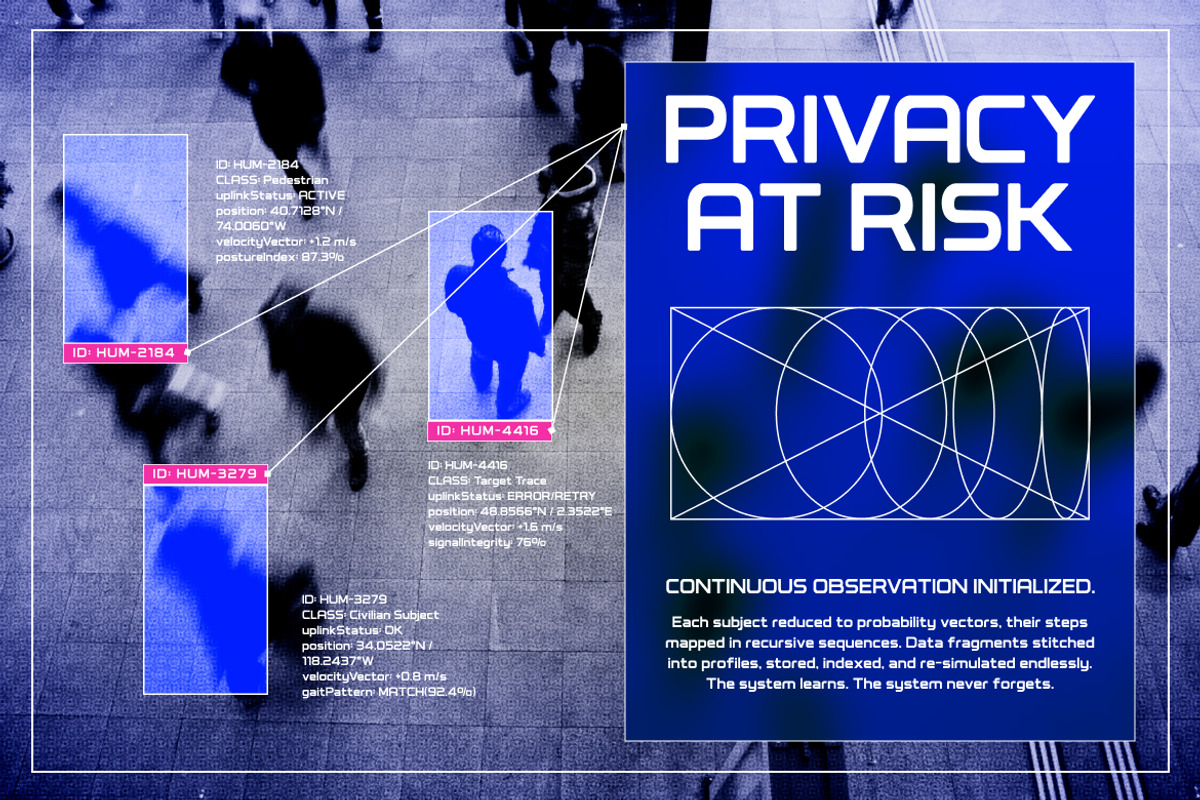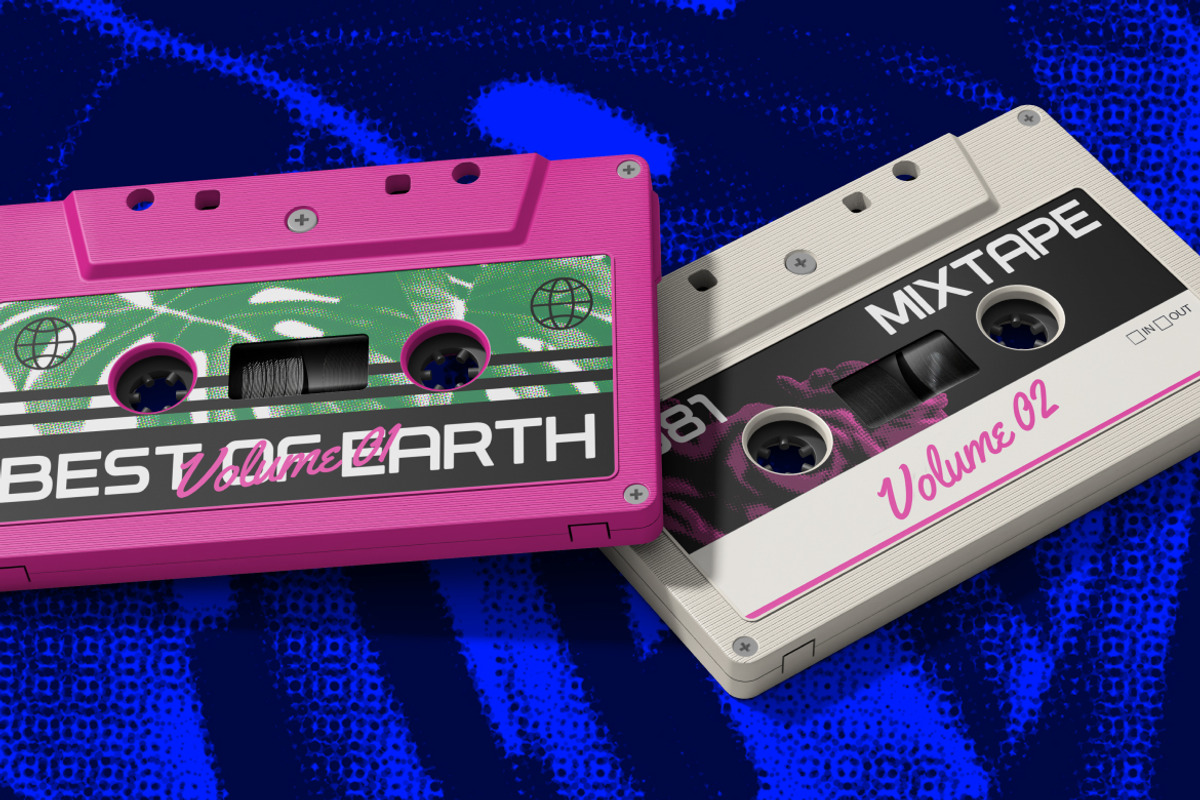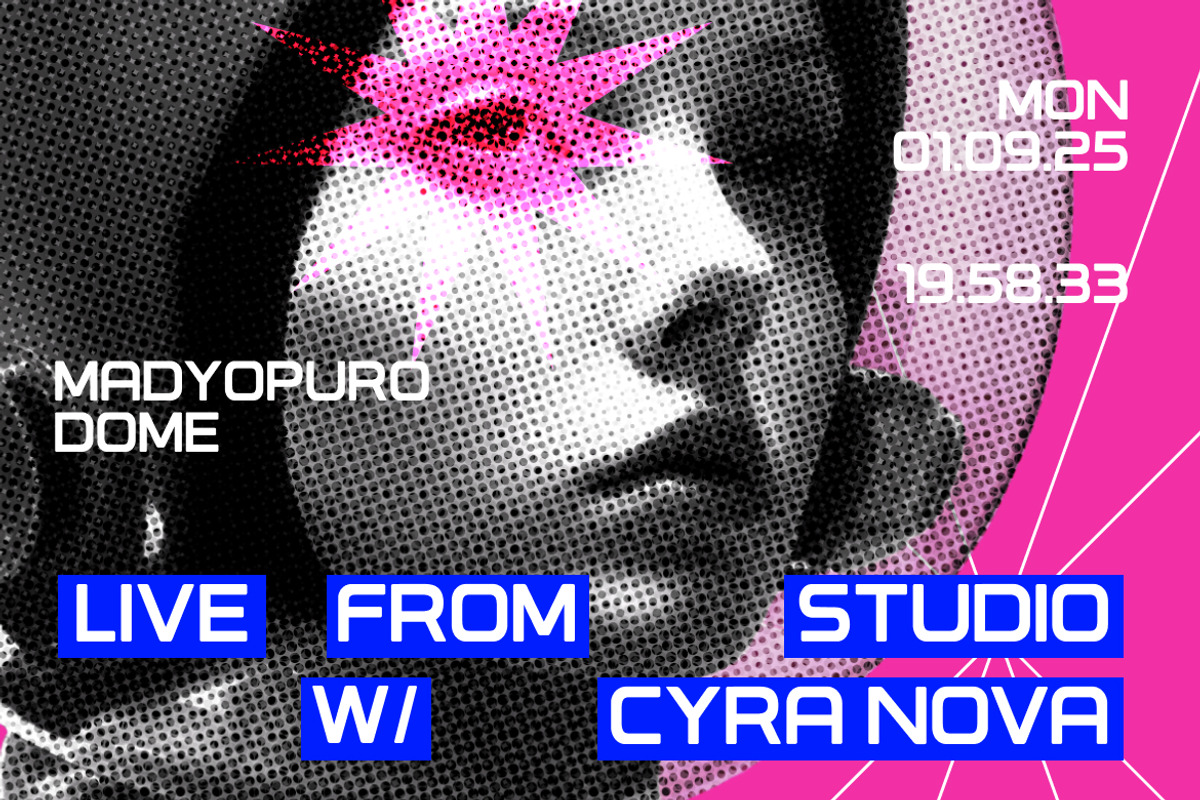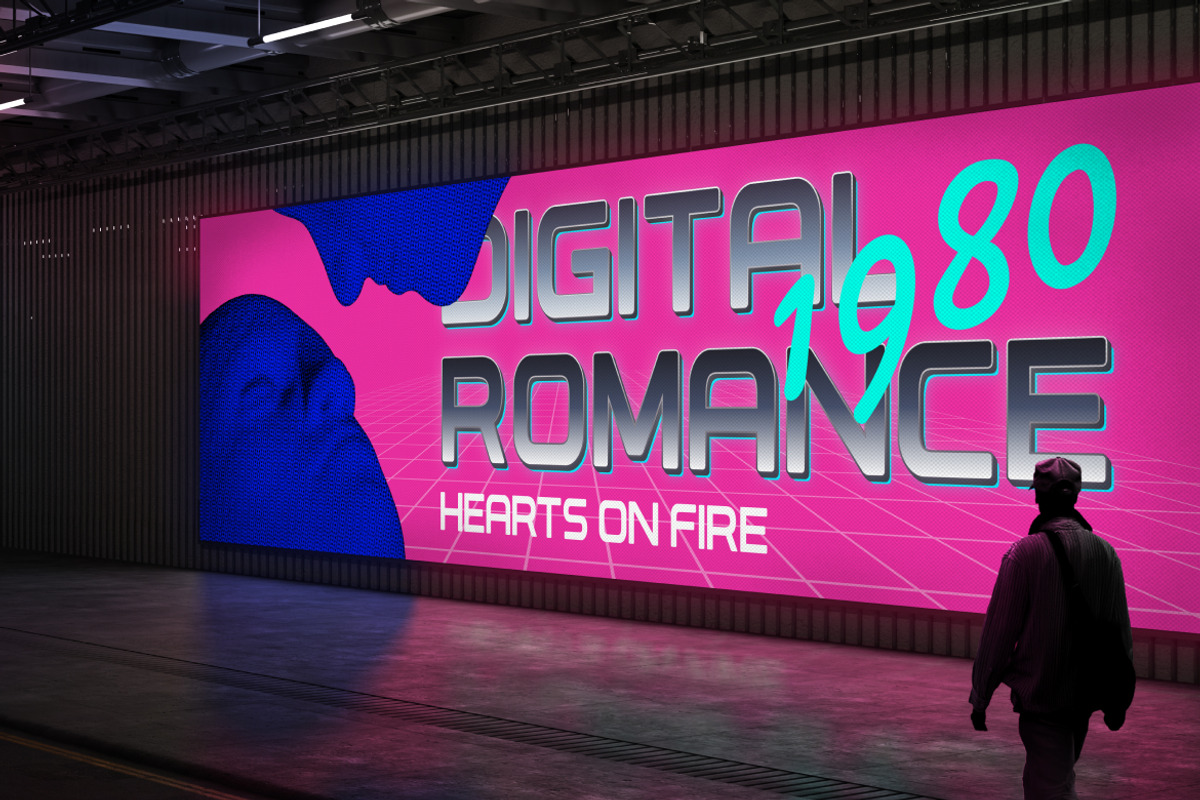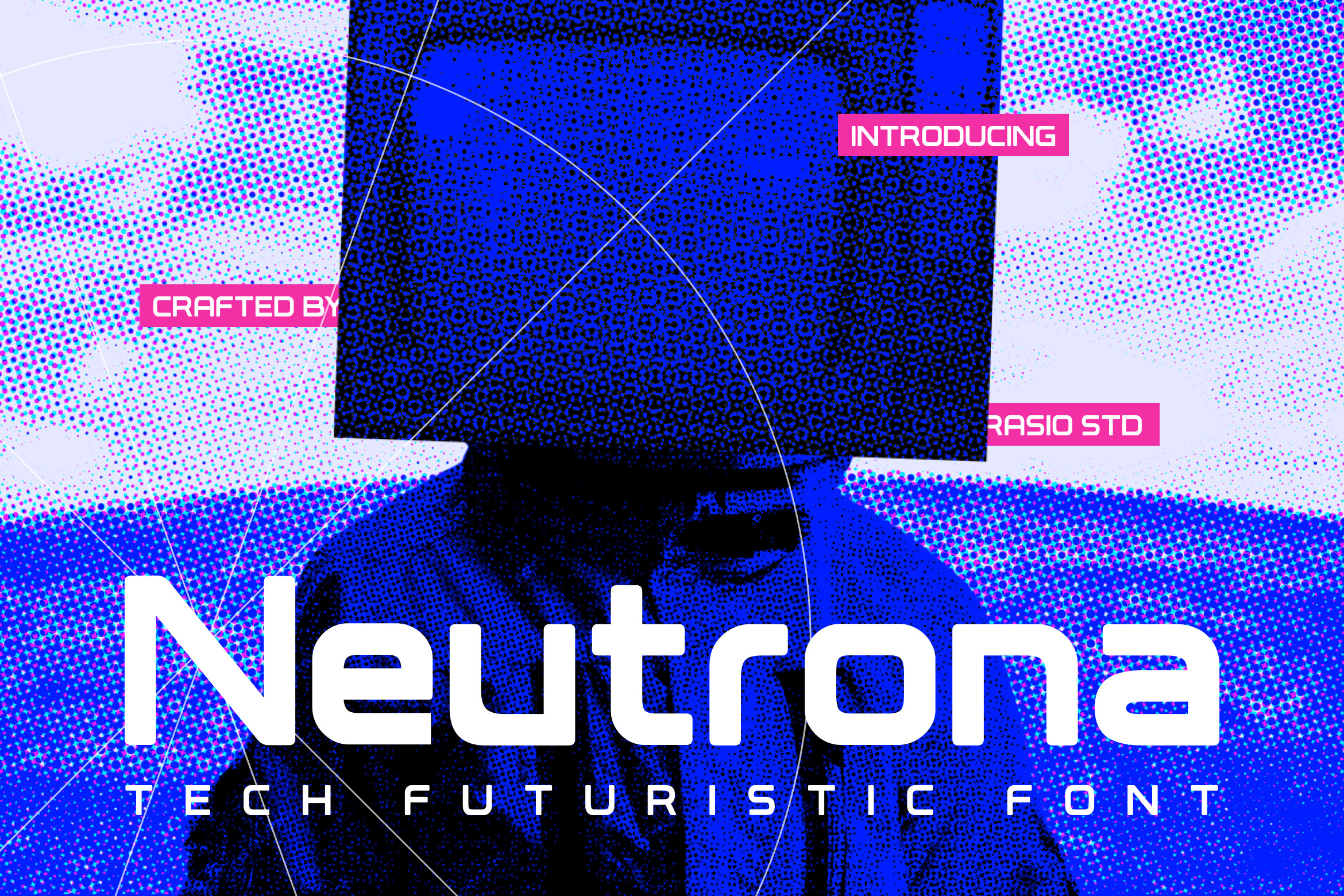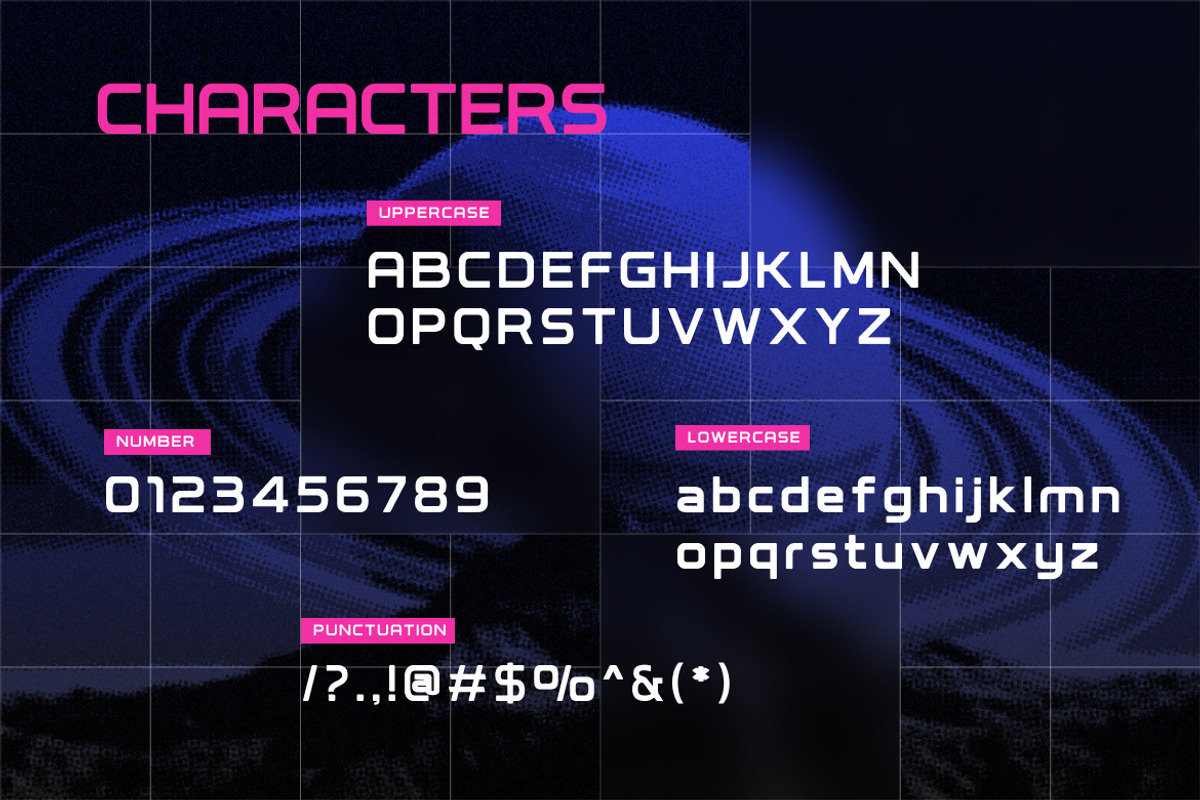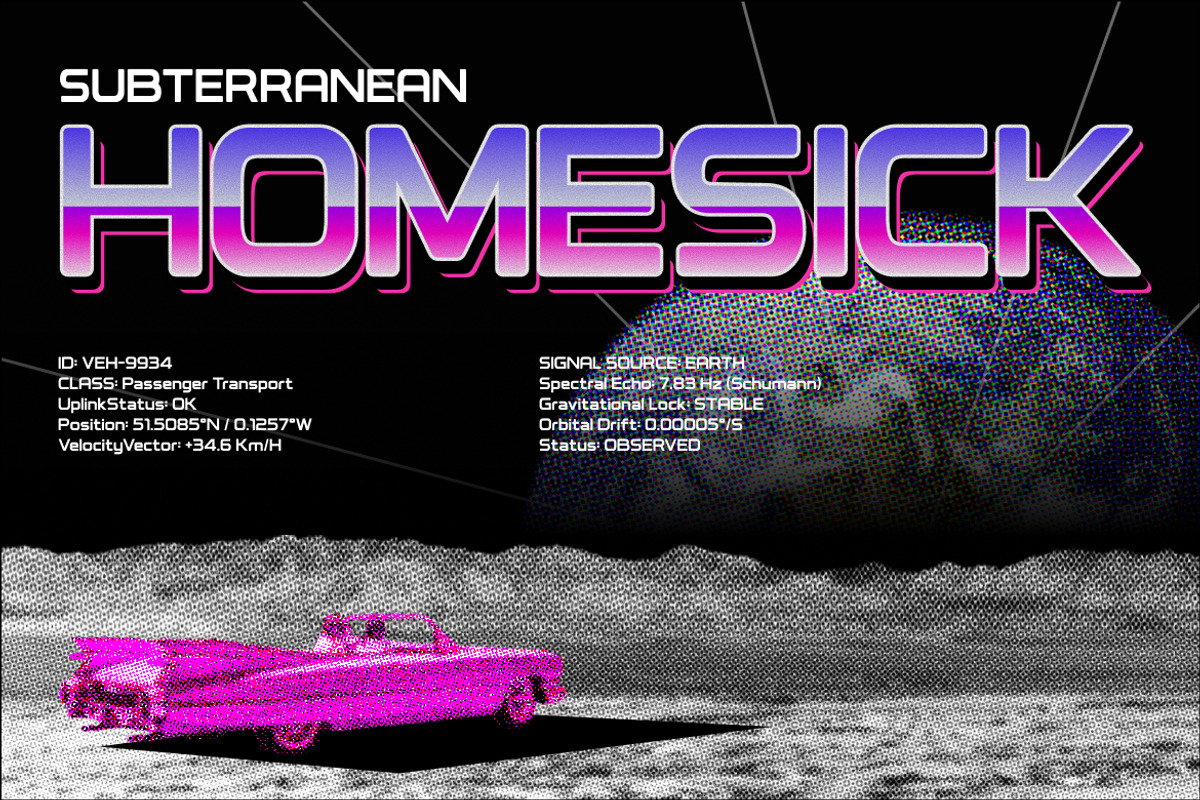
Neutrona Tech Futuristic Font
Neutrona is a modern futuristic display typeface featuring geometric letterforms, rounded corners, and clean sci-fi construction. The package includes uppercase, lowercase, numerals, and essential punctuation, designed with a balanced tech aesthetic suitable for bold headlines and digital compositions. Delivered in high-quality font files fully installable and ready for desktop and web use.
Neutrona is designed for technology branding, gaming visuals, cyberpunk posters, futuristic event promotions, music covers, digital interfaces, and experimental editorial layouts. Its bold and clean structure makes it highly visible for headlines, logos, esports graphics, and modern marketing materials that require a strong tech-forward identity.
- Bold futuristic display design with strong geometric construction
- Angular cuts and sharp slab-inspired forms for a powerful tech presence
- Clean uppercase structure with modern sci-fi proportions
- Balanced spacing optimized for impactful headlines and digital layouts
- Distinct character shapes that enhance visibility in cyberpunk and gaming visuals
- Tech brand identities that require a strong, futuristic presence
- Gaming titles, esports branding, and streaming graphics
- Sci-fi posters, cyberpunk visuals, and digital concept artwork
- Automotive, speed, and performance-driven campaigns
- Bold headlines for web banners, tech UI, and product launches